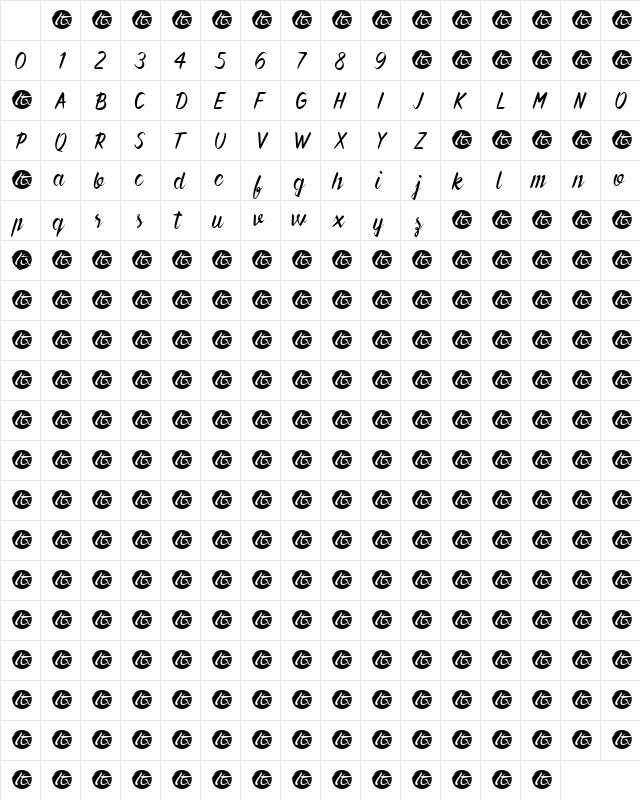
Complete Forever Brush Script Regular glyph index. Displaying only characters natively supported by Forever Brush Script Regular font.
Forever Brush Script flows with the natural rhythm of handwritten lettering, making it ideal for designs that call for warmth and personal expression.
Font Pairing: Combine Forever Brush Script with a simple geometric sans for maximum contrast - the tension between flowing curves and clean structure is a classic typographic pairing.
Pro Tip: Use Forever Brush Script for short runs of text - names, titles, or taglines. Extended body copy in script faces tires the eye quickly.